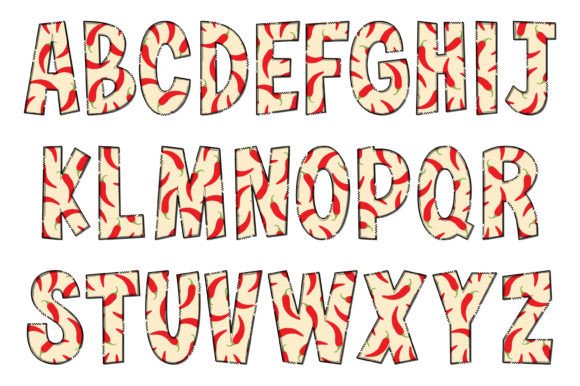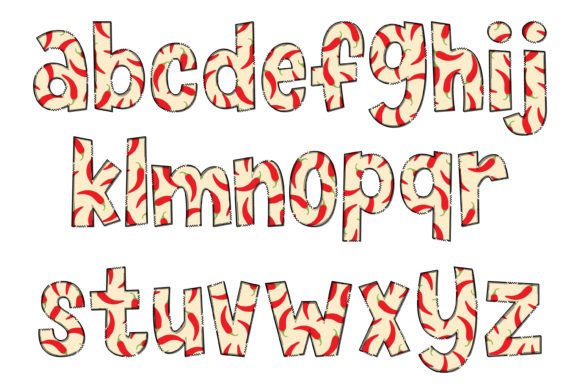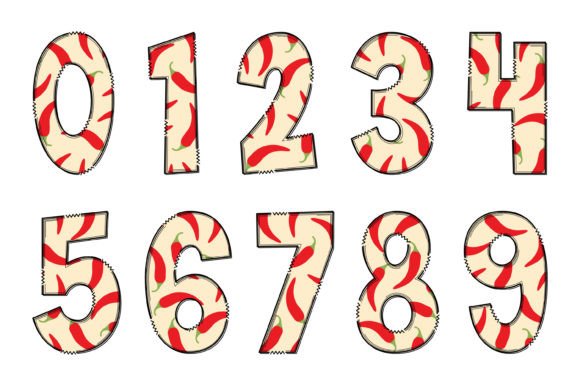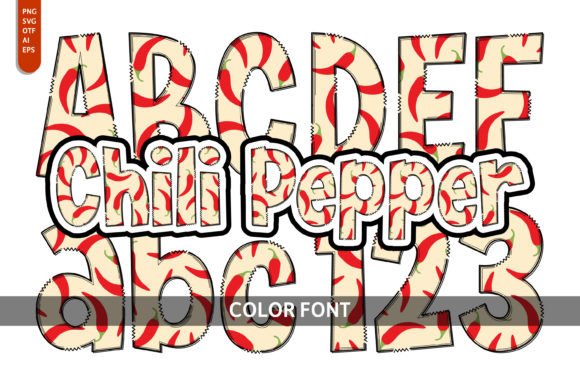
Introducing Chili Pepper Font: Add a Sizzling Burst of Flavor to Your Designs
Are you tired of using the same old fonts in your designs? Do you want to add a pop of color and personality to your projects? Look no further than the Chili Pepper Font! This spicy and vibrant color font is perfect for designers and crafters who want to bring a flavorful touch to their creations. With its cute chili pepper characters and fiery red hues, Chili Pepper is sure to add a zesty and energetic vibe to any design.
What is Chili Pepper Font?
Chili Pepper Font is a unique and eye-catching color font that features adorable chili pepper characters in a range of fiery red hues. The font is designed to add a playful and whimsical touch to your designs, making it perfect for food-related projects, Mexican-themed events, or any design that needs a bold and energetic vibe.
Perfect for Food-Related Projects
If you’re a food blogger, chef, or restaurateur looking for a font that will make your designs stand out, Chili Pepper Font is the perfect choice. The font’s spicy and vibrant design is sure to add a mouth-watering appeal to your projects, whether you’re creating a menu, recipe book, or food-themed website. Imagine using Chili Pepper Font to design a menu for a Mexican restaurant or a food blog featuring spicy recipes. The font’s bold and playful design is sure to add a flavorful touch to your creations.
Mexican-Themed Events and Designs
Chili Pepper Font is also perfect for Mexican-themed events and designs. The font’s vibrant red hues and chili pepper characters evoke the spirit of Mexico’s rich culture and heritage. Whether you’re designing invitations, flyers, or social media graphics for a Mexican-themed party or event, Chili Pepper Font is sure to add a festive and energetic touch. You can also use the font to create eye-catching designs for Cinco de Mayo celebrations, Dia de los Muertos, or other Mexican holidays.
Adding a Zesty and Energetic Vibe to Your Designs
Chili Pepper Font is not just limited to food-related projects or Mexican-themed events. The font’s bold and playful design can add a zesty and energetic vibe to any design. Imagine using Chili Pepper Font to create a bold and eye-catching headline for a fashion or lifestyle blog. The font’s vibrant red hues and playful chili pepper characters can add a fun and energetic touch to your designs, making them stand out from the crowd.
Why Choose Chili Pepper Font?
So why choose Chili Pepper Font for your designs? Here are just a few reasons:
- Unique and eye-catching design: Chili Pepper Font features a unique and eye-catching design that is sure to make your designs stand out.
- Playful and whimsical: The font’s playful and whimsical design makes it perfect for adding a touch of personality to your creations.
- Versatile: Chili Pepper Font can be used for a range of design projects, from food-related projects to Mexican-themed events and more.
In conclusion, Chili Pepper Font is a spicy and vibrant color font that is perfect for designers and crafters who want to add a flavorful touch to their creations. With its cute chili pepper characters and fiery red hues, Chili Pepper is sure to add a zesty and energetic vibe to any design. Whether you’re working on a food-related project, Mexican-themed event, or just want to add some personality to your designs, Chili Pepper Font is the perfect choice. So why wait? Download Chili Pepper Font today and start adding a sizzling burst of fun to your creative endeavors!